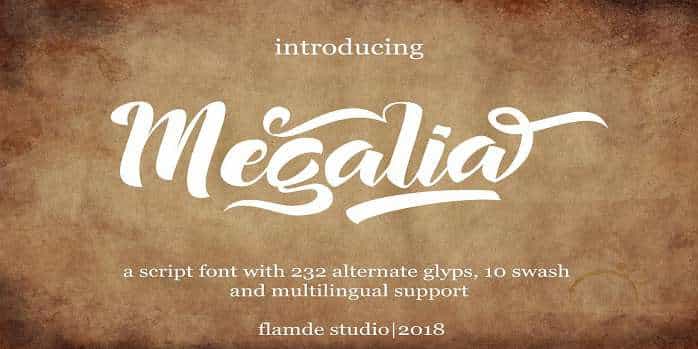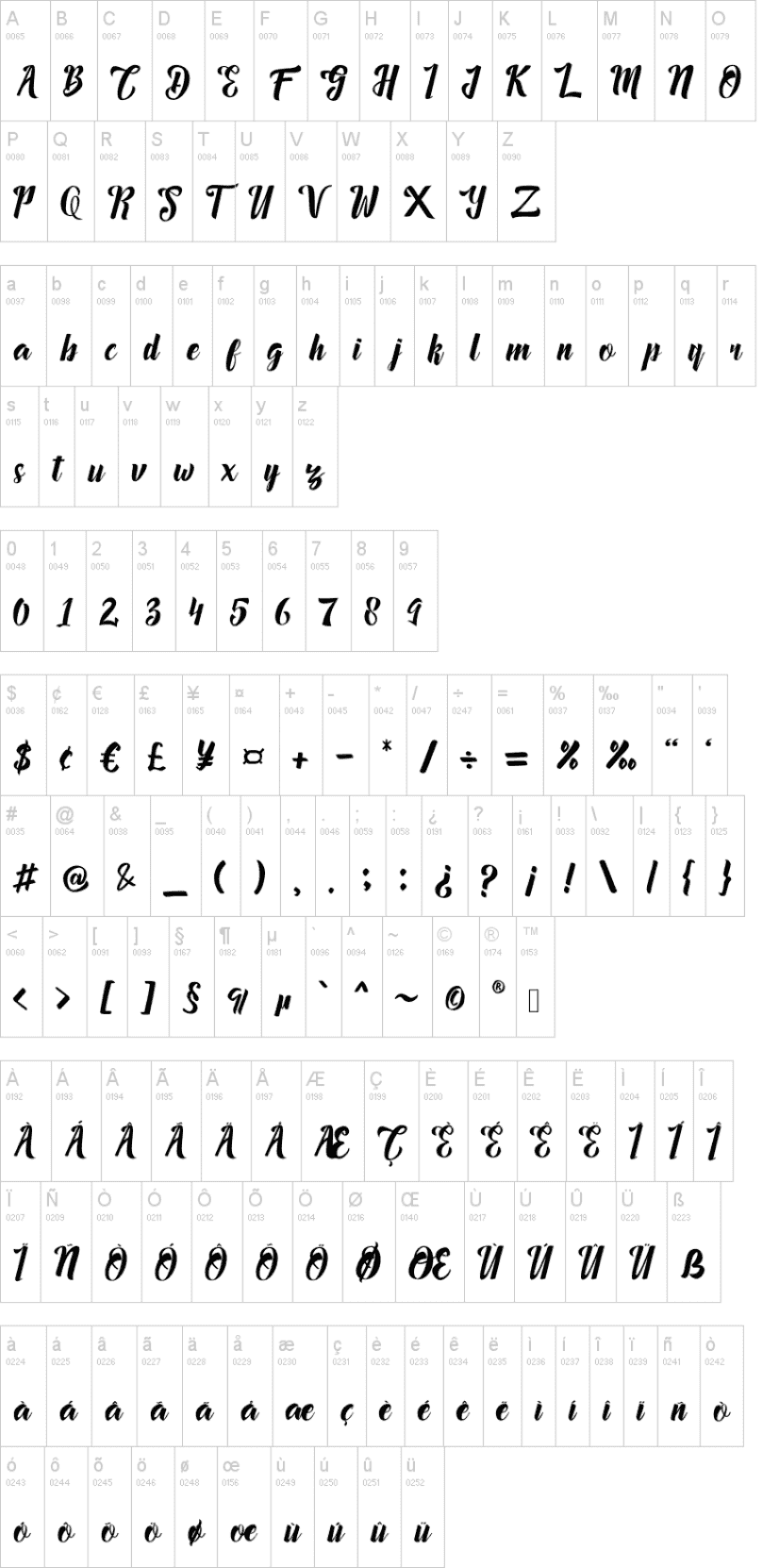
Megalia is an elegant and professional brush font that is created by Flamde Studio and is free for download and personal use. The free version offers all the alphabets in their upper case and lower case forms and just a few more special characters.